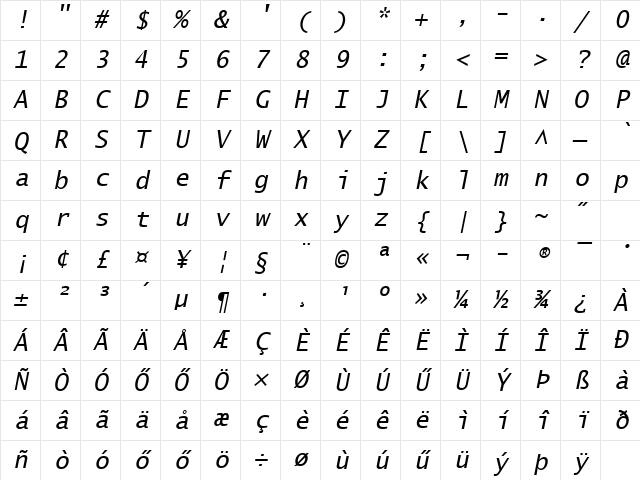
Complete H_Lucida Sans Typewriter Oblique glyph index. Displaying only characters natively supported by H_Lucida Sans Typewriter Oblique font.
H_Lucida Sans Typewriter uses fixed-width spacing throughout, giving it the structured, systematic character associated with coding environments and technical documentation. The slanted form adds forward momentum and visual energy.